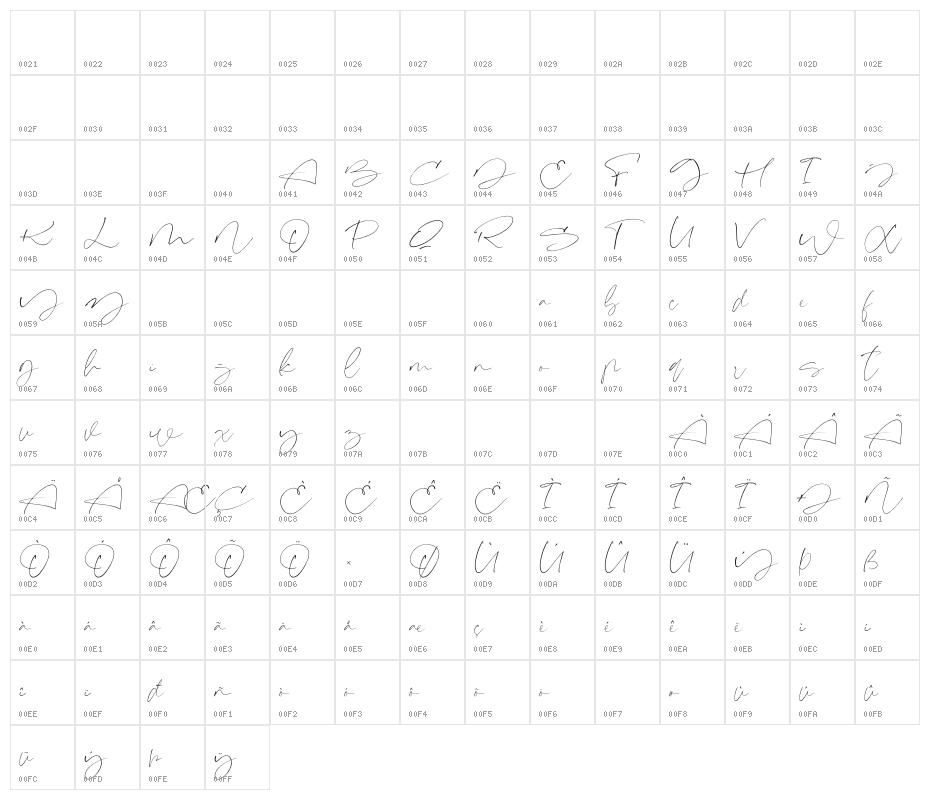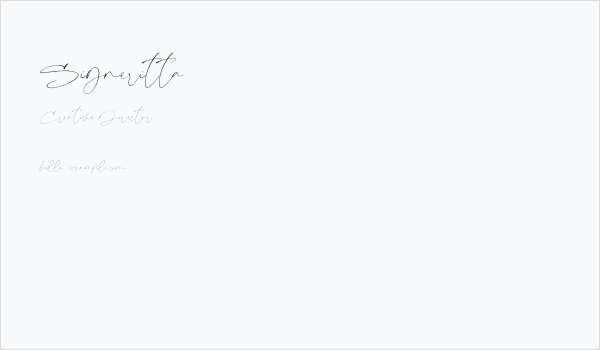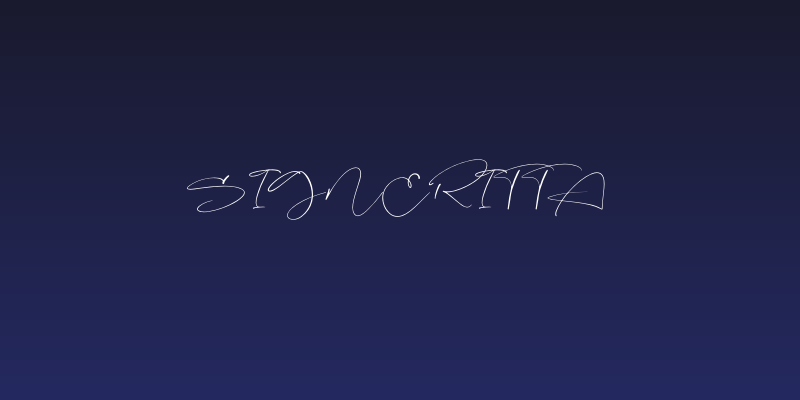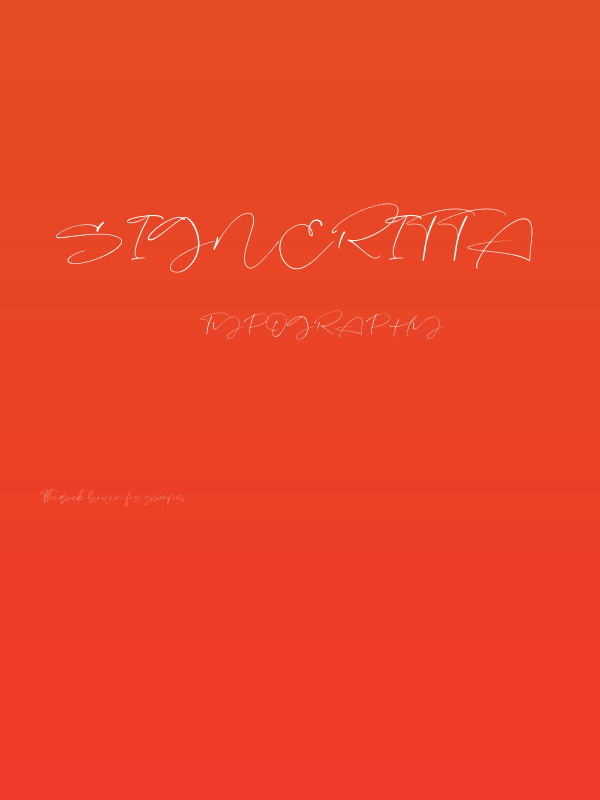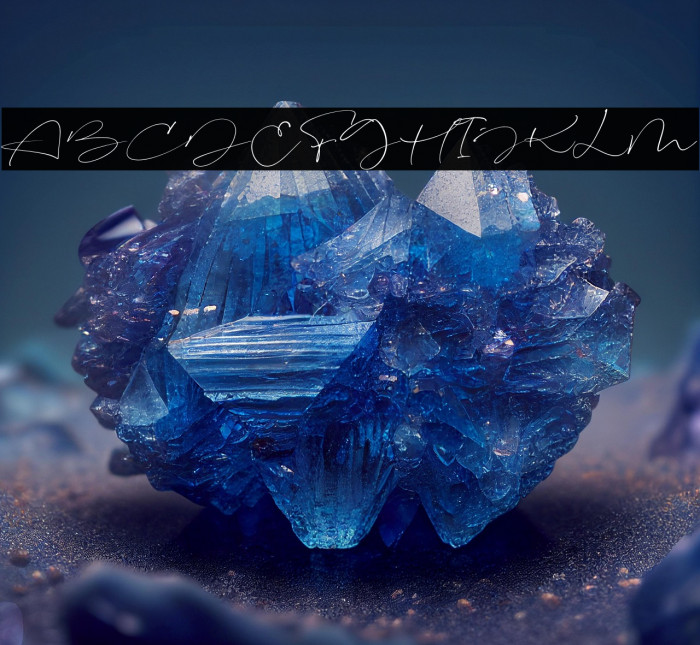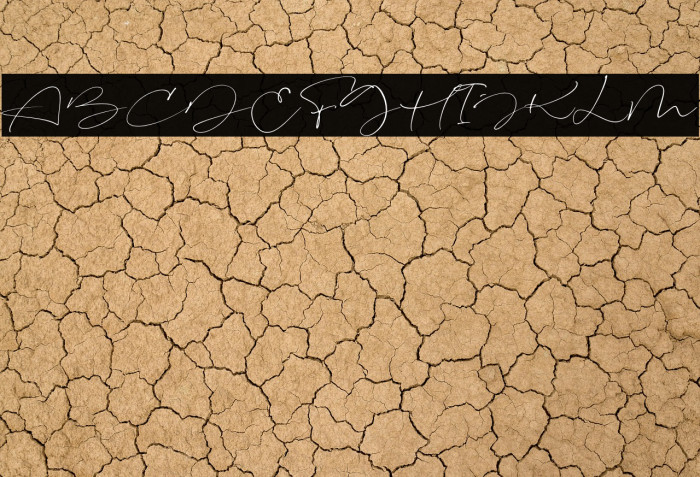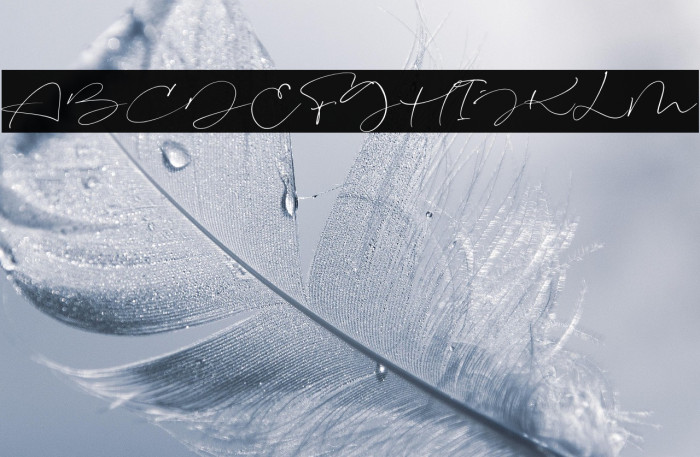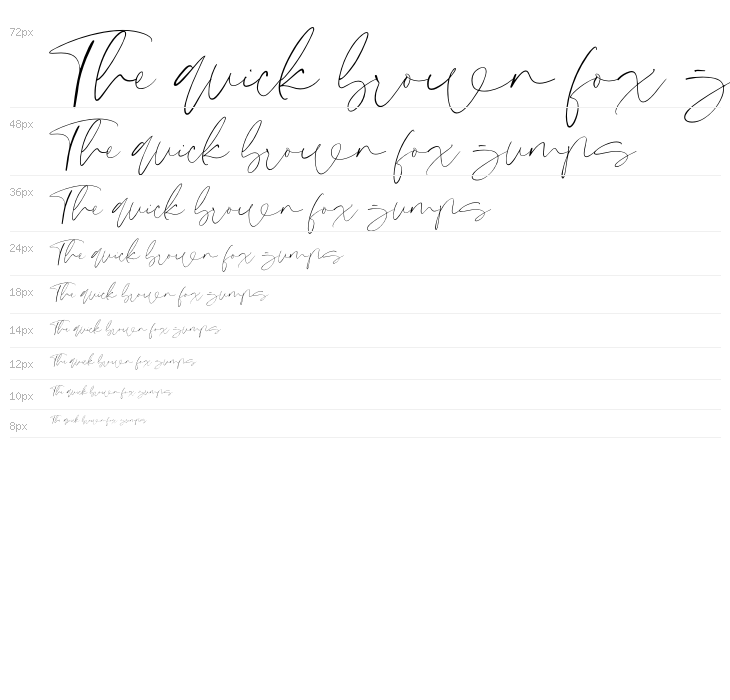
Signeritta Font
Signeritta Description
This elegant script font features a flowing, cursive style with delicate, interconnected strokes. The letters are characterized by their fluidity and graceful curves, giving the font a sophisticated and artistic appearance. The uppercase letters are slightly more structured, while the lowercase letters exhibit a more freeform, handwritten quality. The overall design is airy and light, with a sense of movement that adds a personal touch to any text. This font is ideal for projects that require a touch of elegance and creativity, such as invitations, greeting cards, and branding materials.
| Overall Style | Elegant, Artistic |
| Use Case | Invitations, Artistic projects, Branding |
| Proposed Projects | Ideal for wedding invitations, greeting cards, personal branding, and artistic projects. |